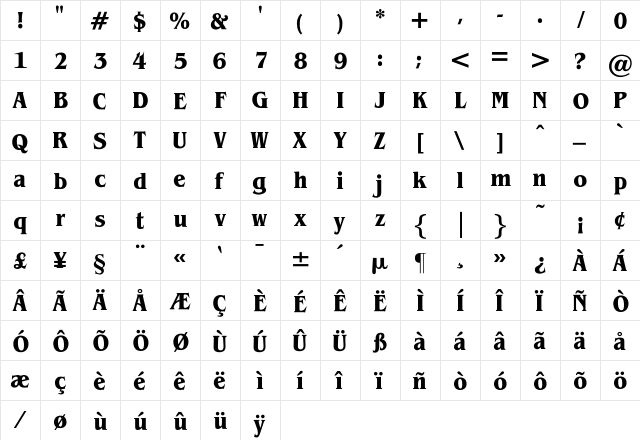
JonathanBoldCondensed Regular
Design Context for JonathanBoldCondensed Typeface
JonathanBoldCondensed is a composed and adaptable typeface that performs quietly and consistently across a wide range of design contexts. The heavy weight commands attention and anchors typographic hierarchies. The condensed width makes it efficient for tight spaces without sacrificing legibility.